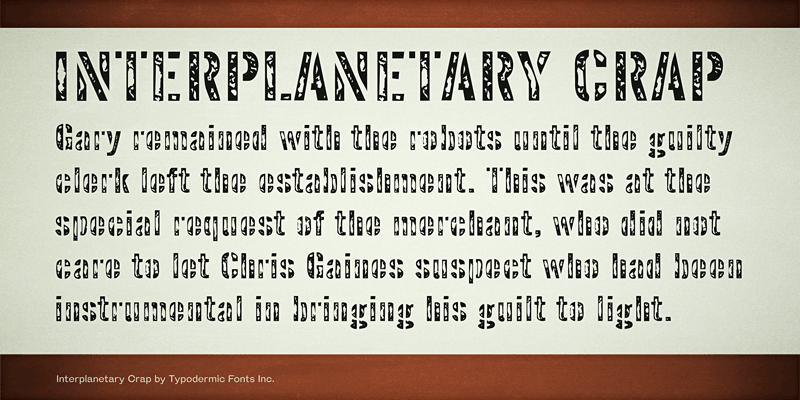
Preview and download Interplanetary Crap Font. Created by Typodermic Fonts in Fancy Stencil, Army styles with 100% Free license.
Interplanetary Crap is a crispy, crusty, flaked stencil font. This font includes a license that allows free commercial use: sometimes referred to as a desktop license. This allows you to install the font on a computer and use it to create posters, web graphics, game graphics, t-shirts, videos, signs, logos and more. Read the license agreement for details. If you'd like to embed this font in an app, ebook, on the web or anything that's not covered by the desktop license agreement, visit the link below. You'll find distributors who offer different types of licenses or you can contact me for help. http://typodermicfonts.com/interplanetary-crap/ |